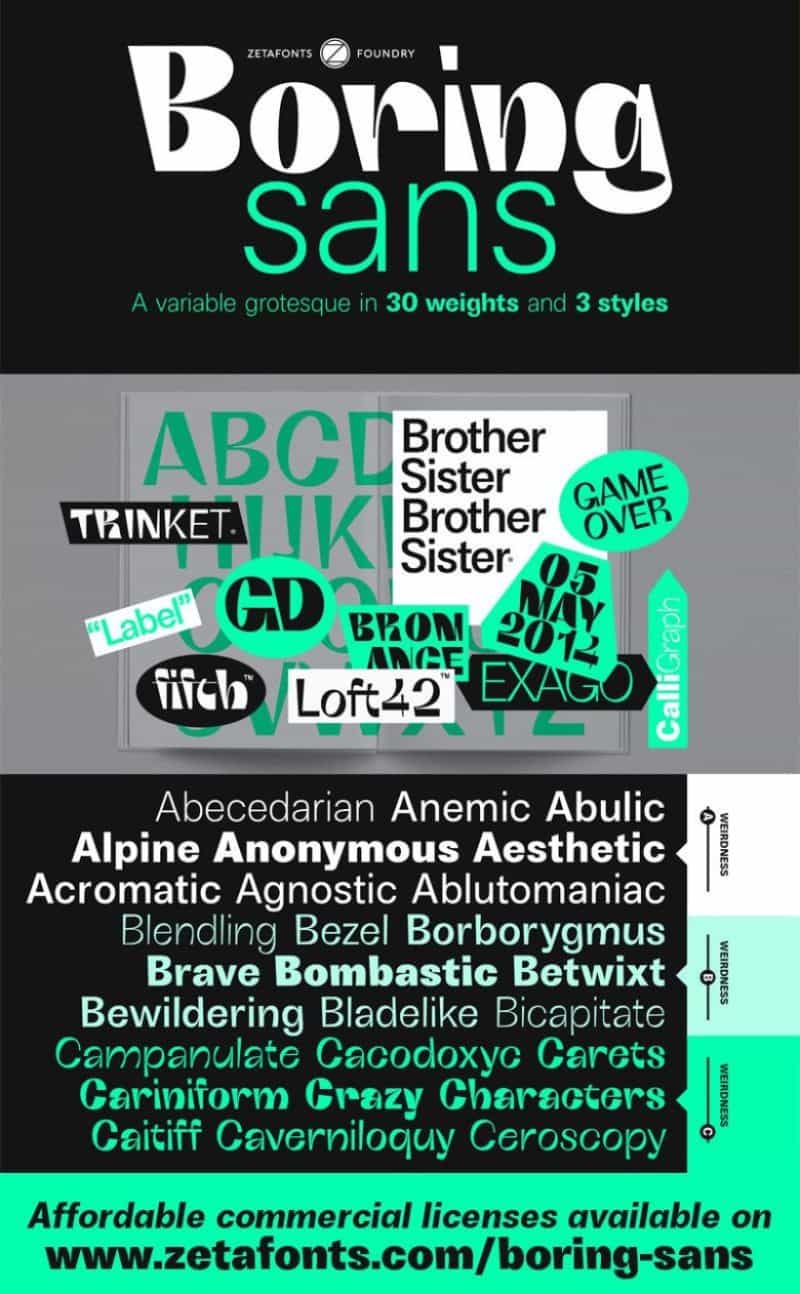
Boring Sans Font, designed by Cosimo Lorenzo Pancini, is a typeface family designed along two variable axis: The weight and the weirdness are two of such characteristics. These two parameters enable a designer to go through the entire spectrum of variations in sans serif design, starting from a neutral set of proportions and ending with a strongly contrasted and dynamic treatment that is ready to shock on social media.